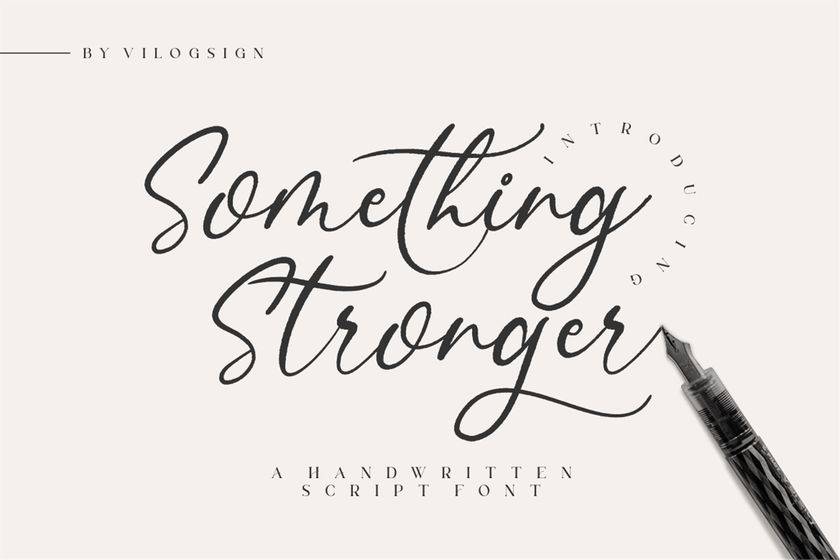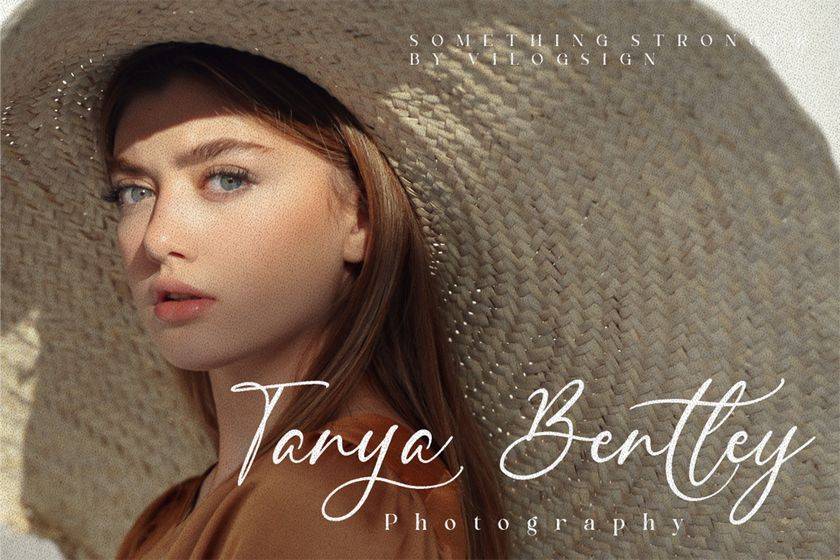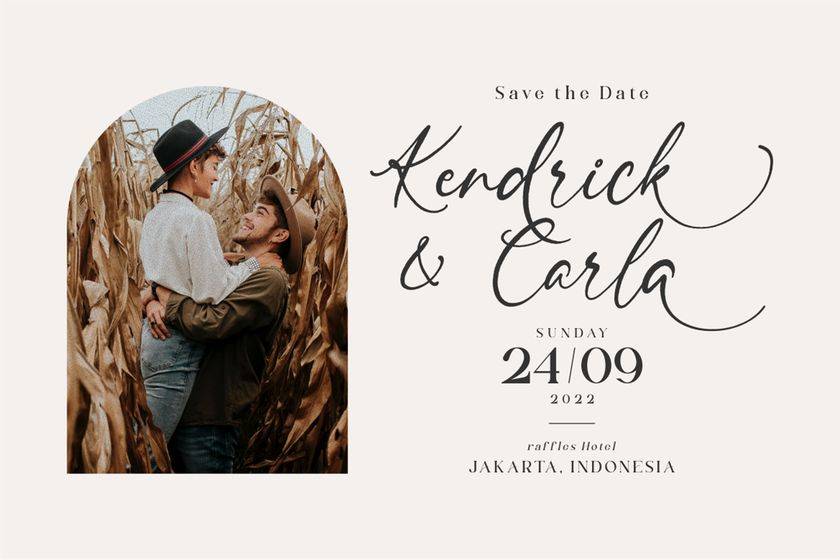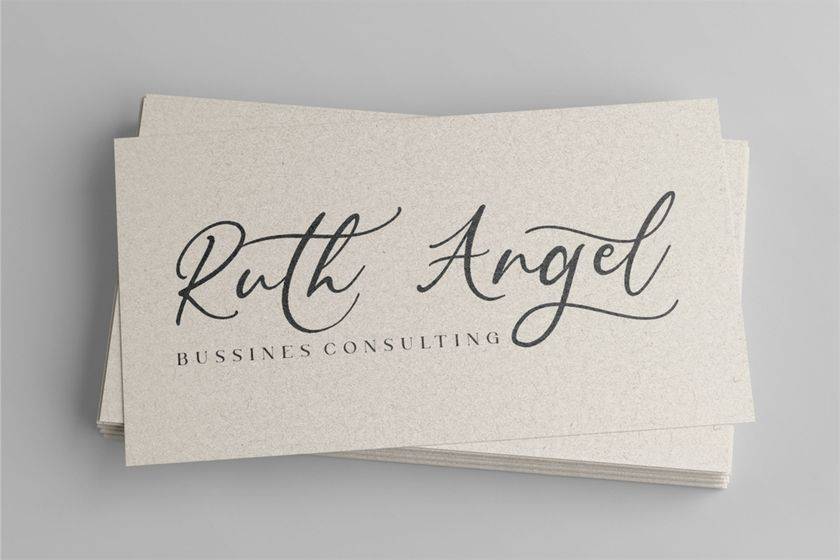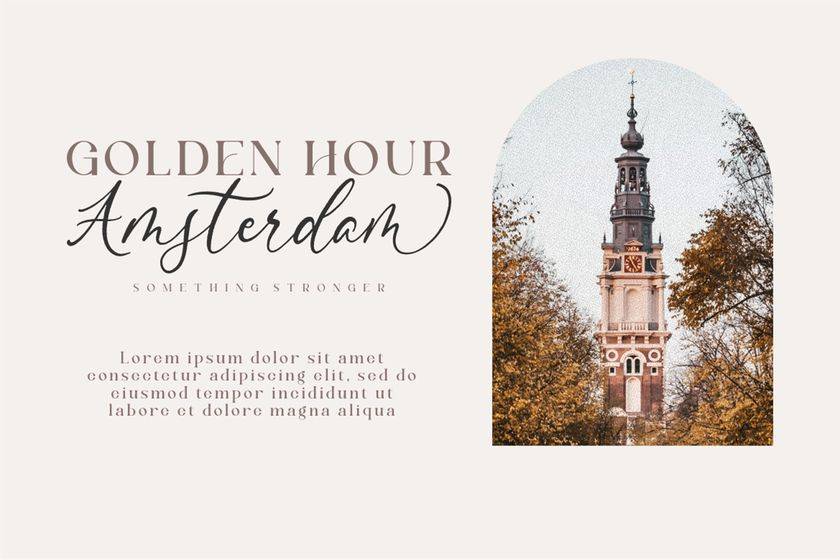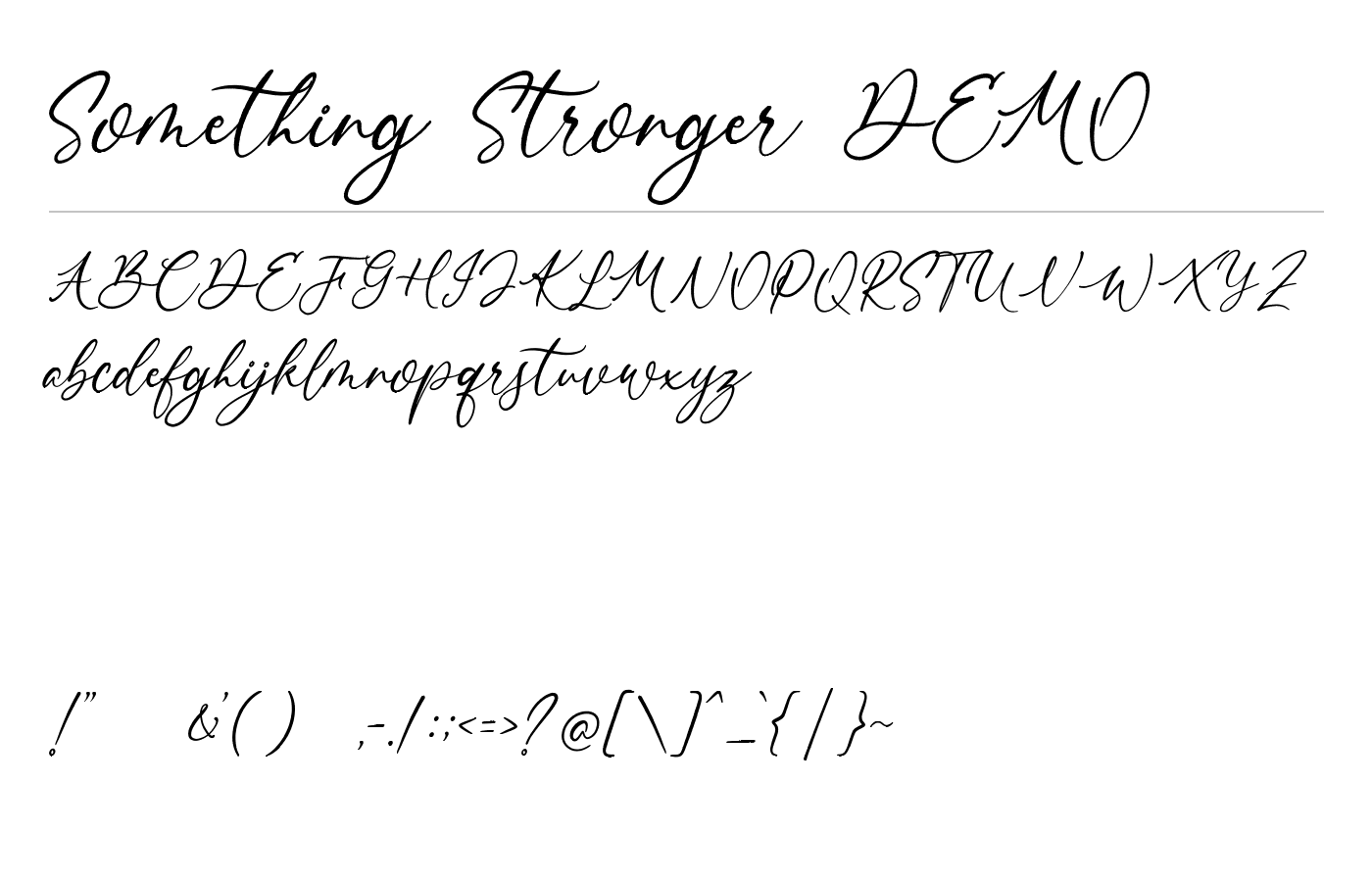
Something Stronger is a delicate, elegant script font characterized by its smooth, flowing strokes and graceful letterforms. Its thin weight and high contrast create a refined, handwritten feel that is perfect for adding a personal, stylish touch to invitations, branding, and editorial designs. This font works beautifully in contexts where a sense of sophistication and gentle charm is desired.
| Font family | Something Stronger Font |
| Release date | 2022-04-15 |
| Designer | Vilogsign |